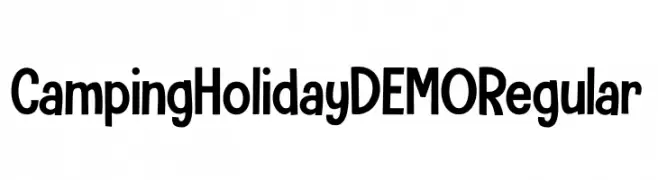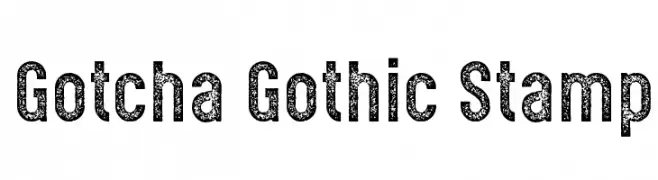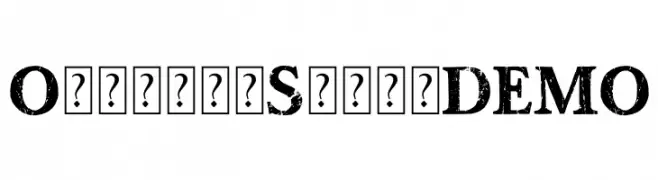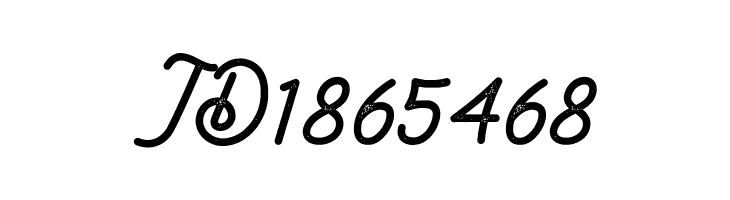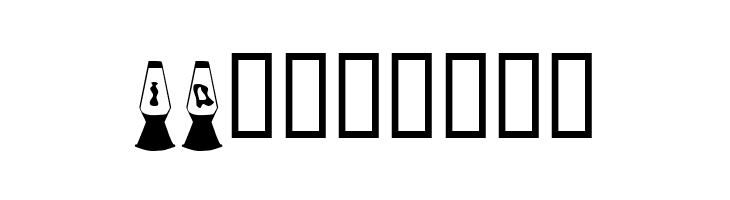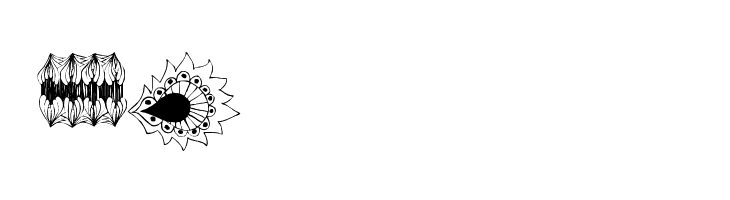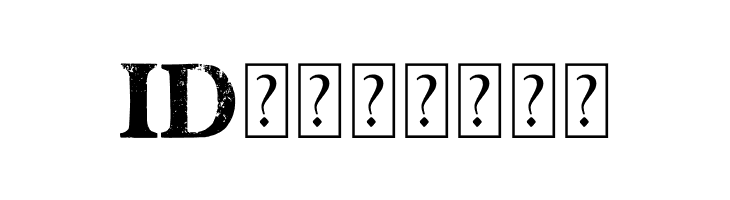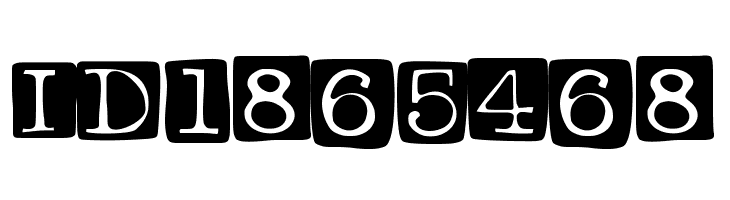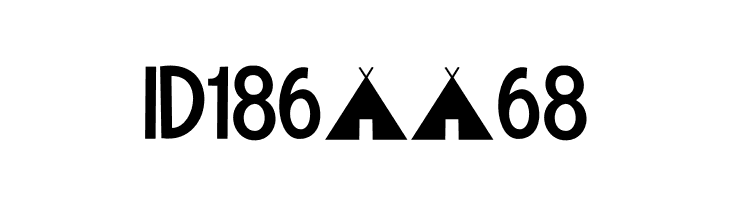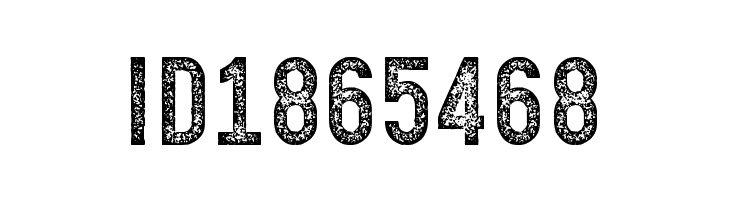
A hand-drawn, playful font with irregular strokes and a whimsical style.
A delicate, flowing script font with elegant cursive letterforms.
A playful, handwritten font with bold, rounded characters and a casual style.
A bold, vintage-style font with a strong, industrial feel.
A bold, playful handwritten font with rounded, irregular characters.
A bold, decorative font with a mechanical, steampunk aesthetic.
A bold, distressed font with a vintage, rugged appearance.
A distressed, vintage-style font with a textured, handcrafted appearance.
A bold, textured font with a vintage, handcrafted appearance.
A bold, distressed font with a vintage, grunge aesthetic.
A bold, graffiti-inspired font with dynamic, angular characters.
A playful, hand-drawn font with bold, rounded characters and a whimsical texture.
A bold, italicized font with a distressed, vintage texture.
Handwritten cursive script with a casual elegance.
Festive, decorative display font with snowflake accents.
A bold, vintage serif font with strong serifs and a classic aesthetic.
A bold, dotted font with a pixelated, digital appearance.
A bold, angular font with a geometric and edgy design.
A bold, geometric font with a retro yet modern aesthetic.
A bold, hand-drawn font with dynamic, irregular strokes and a playful yet aggressive style.